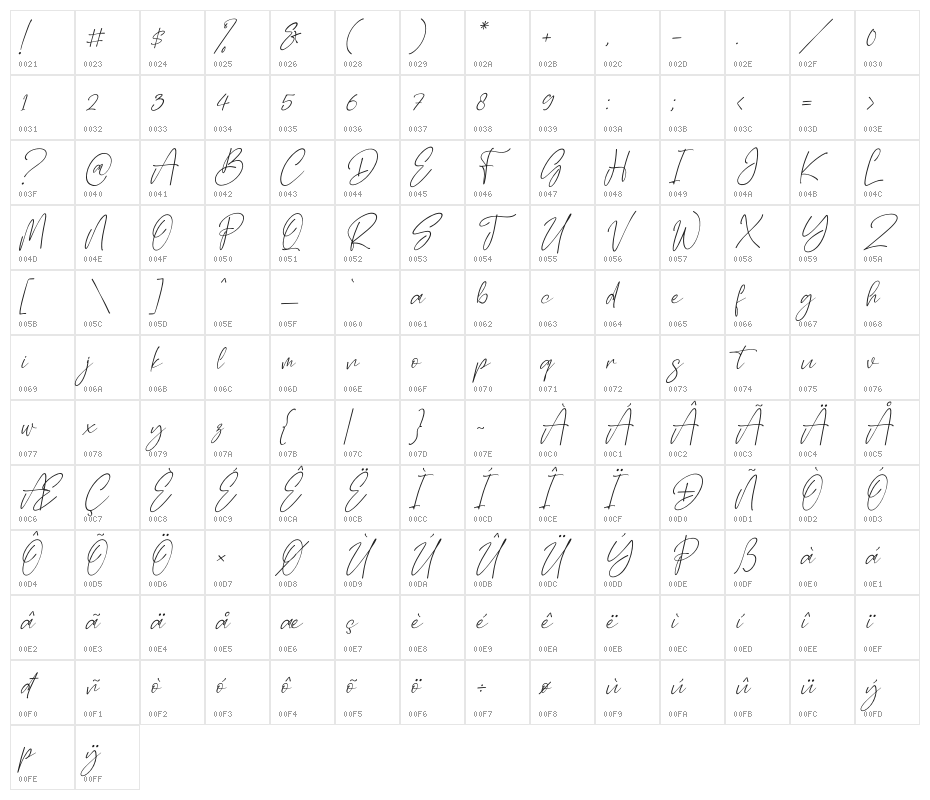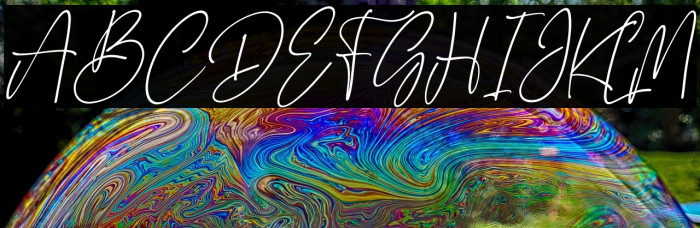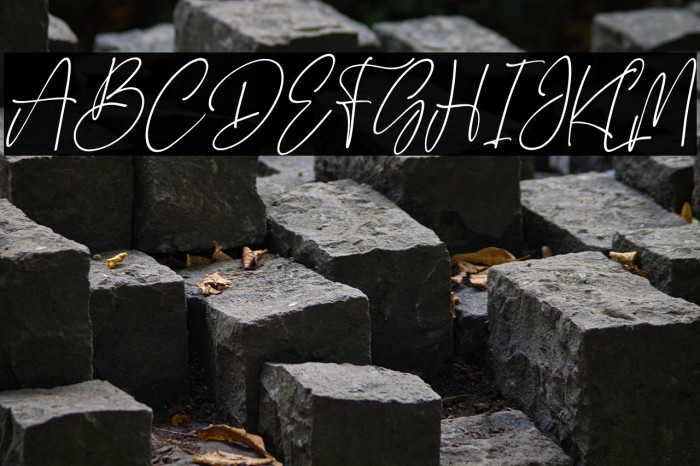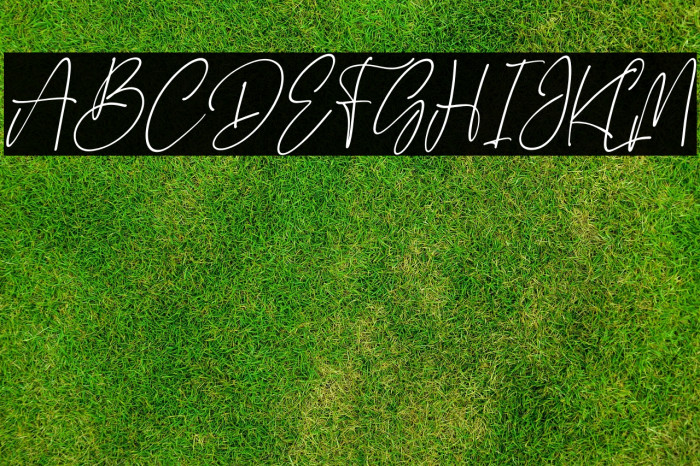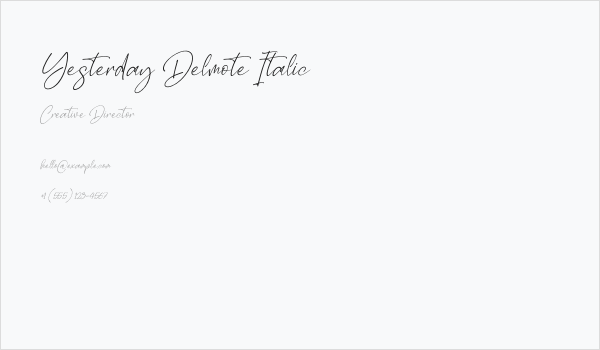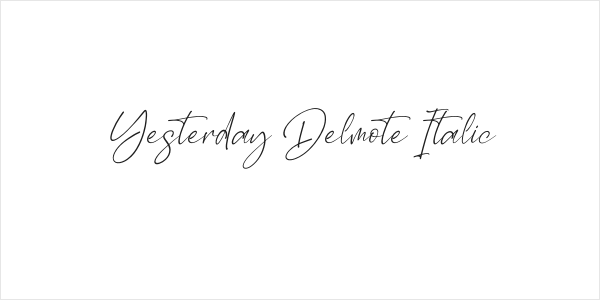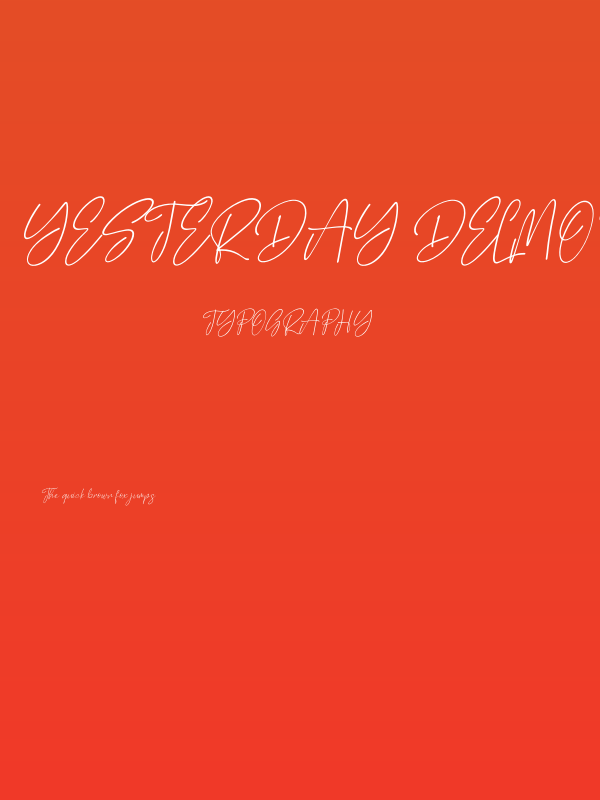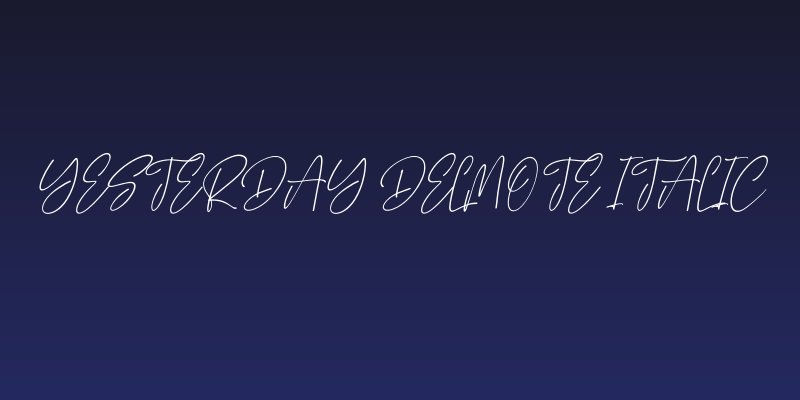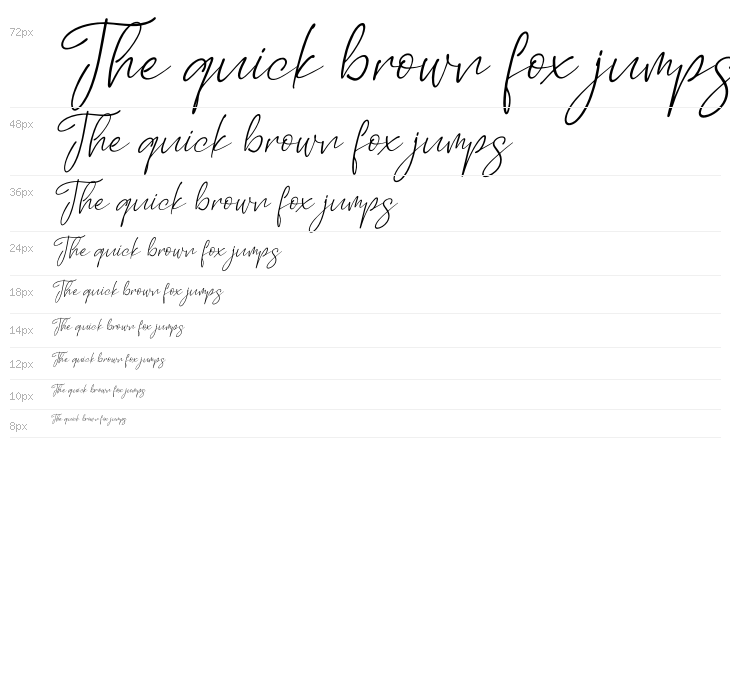
Yesterday Delmote Italic Font
Yesterday Delmote Italic Description
This font showcases an elegant and flowing script style, characterized by its smooth, cursive letterforms. Each character is crafted with a sense of fluidity and grace, making it ideal for conveying a sense of sophistication and creativity. The uppercase letters are slightly more elaborate, with sweeping curves and extended strokes, while the lowercase letters maintain a consistent, flowing rhythm. The numerals and special characters are designed to complement the overall style, featuring similar curves and angles. This font's delicate and artistic appearance makes it suitable for a variety of creative applications.
| Overall Style | Elegant, Artistic |
| Proposed Projects | Ideal for wedding invitations, greeting cards, branding, and artistic projects. |